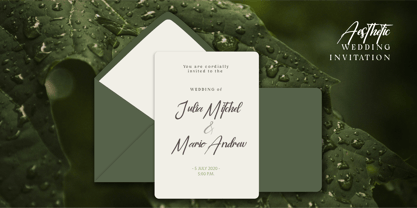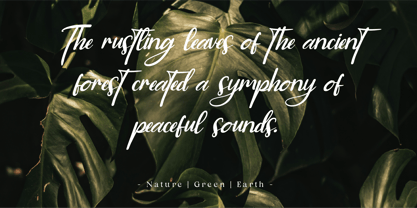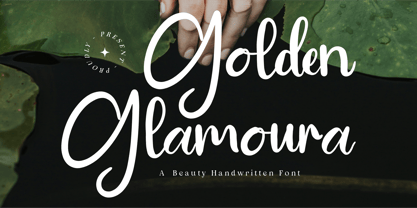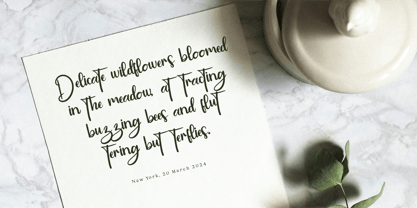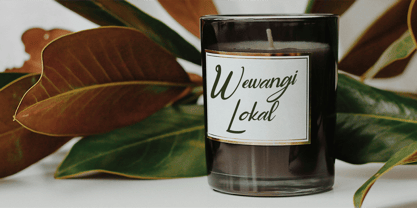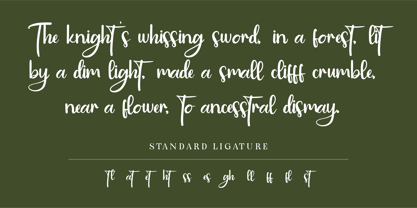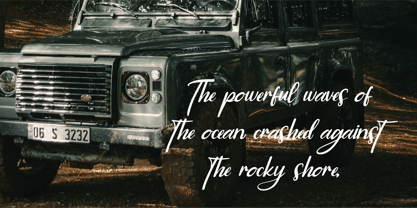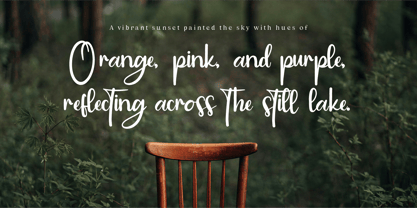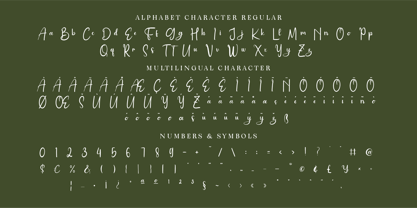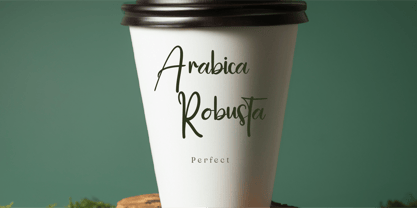
Golden Glamoura – A Luxurious Beauty Handwritten Font
Discover the grace and refinement of Golden Glamoura, a beauty handwritten font crafted for those who appreciate elegance in every detail. With its flowing curves, sophisticated strokes, and effortless charm, this typeface exudes luxury, making it the perfect choice for high-end branding, beauty and fashion projects, wedding stationery, and upscale product packaging.
Designed to be both expressive and versatile, Golden Glamoura strikes a balance between modern chic and timeless elegance. Whether you're creating logo designs, editorial layouts, or stylish social media content, this font will add a touch of refinement and exclusivity to your visuals.
Why Choose Golden Glamoura?
💫 Elegance in Every Stroke: A graceful script that embodies beauty and sophistication.
✨ Perfect for Luxury Branding: Ideal for high-end fashion, beauty, and lifestyle projects.
🎀 Flawless Flow & Readability: Designed to maintain style without sacrificing clarity.
🖋 Authentic Handwritten Charm: A natural yet refined handwritten script for exclusive designs.